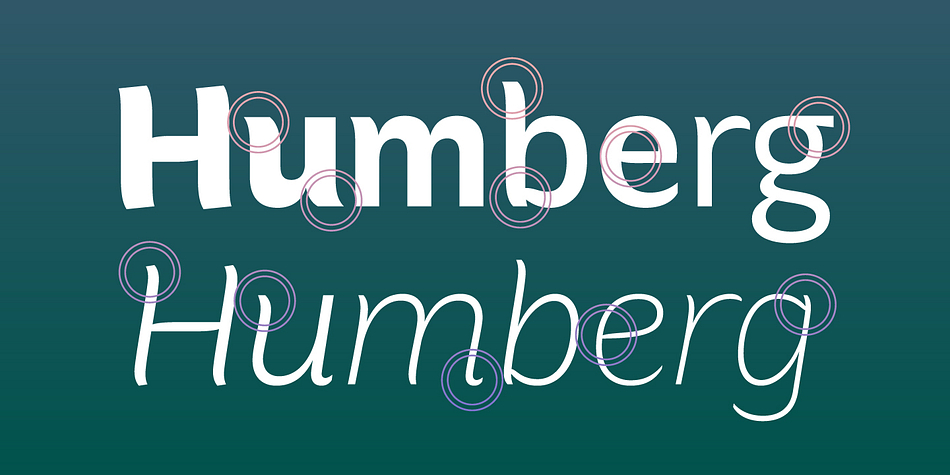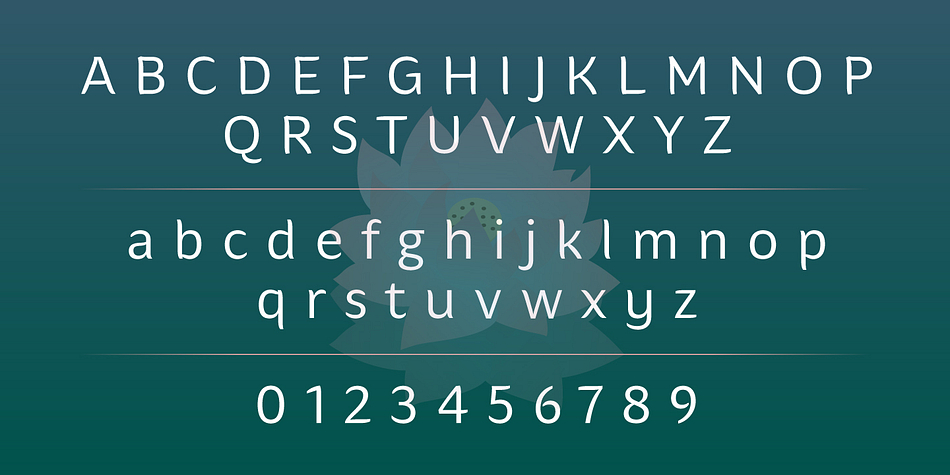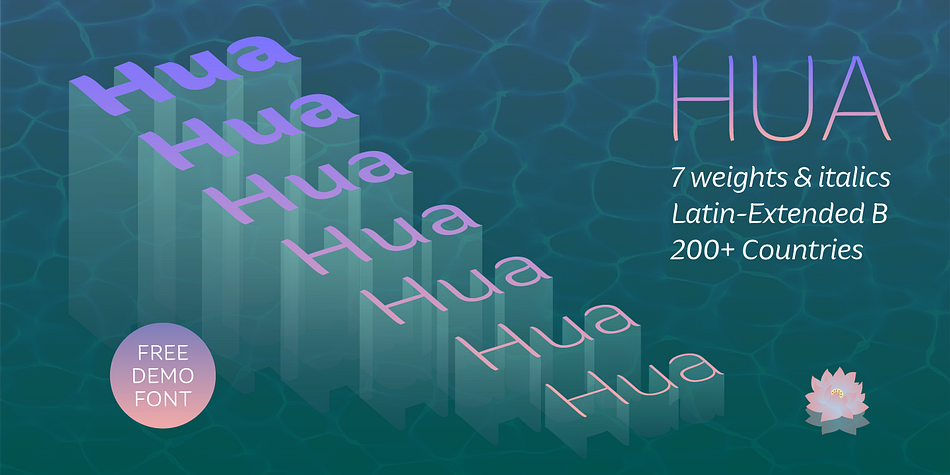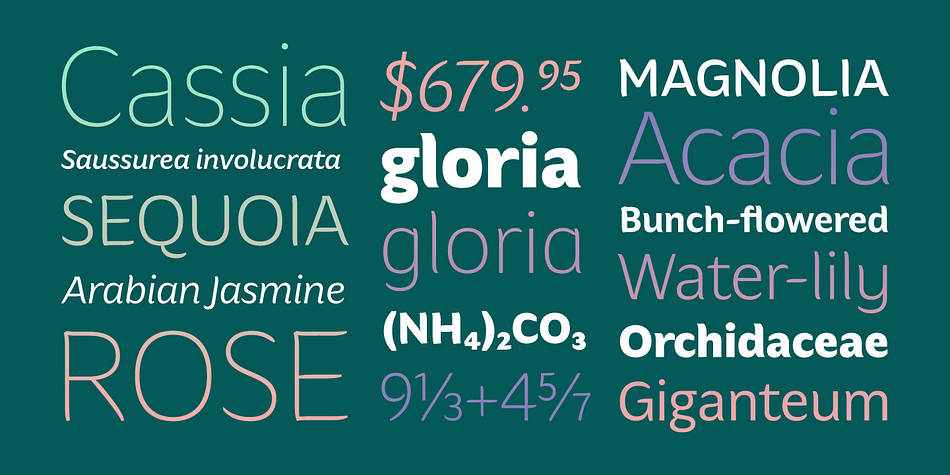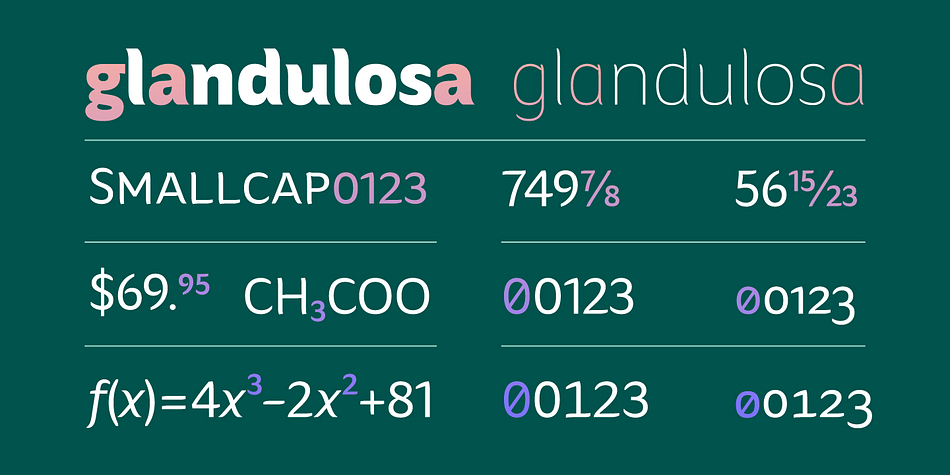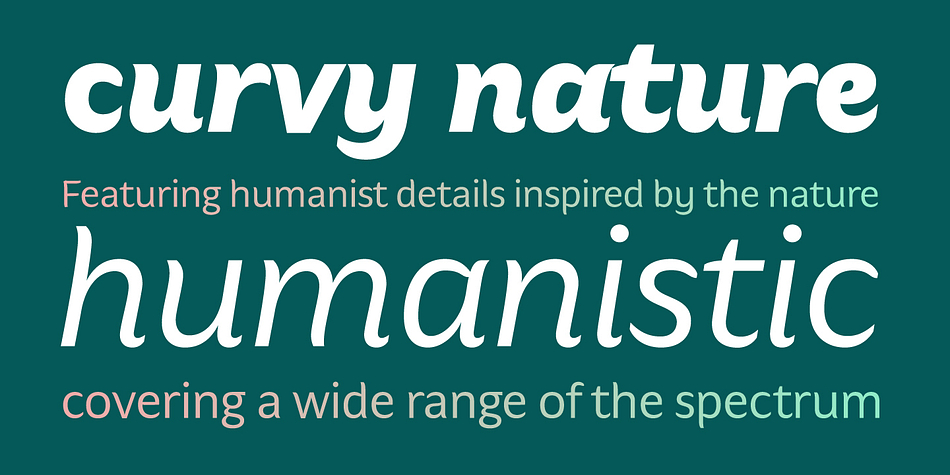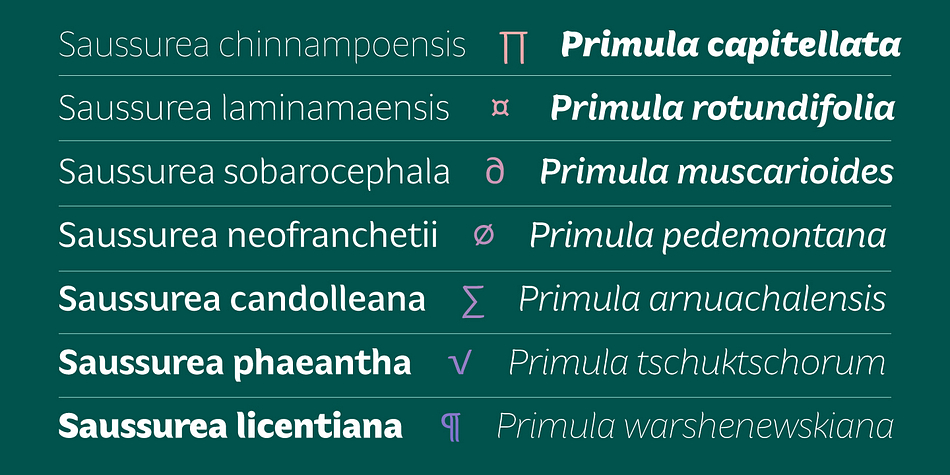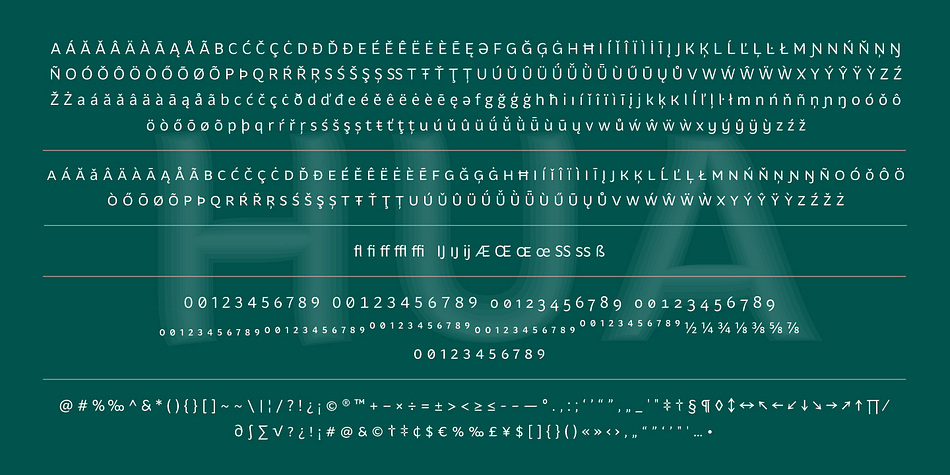
Designed by Yuexin Huo, Hua is a sans serif font family. This typeface has fifteen styles and was published by YXType.
Hua type family is a sans-serif with very humanist details to represent the essence of nature. It features 14 weights from the very thin to the very bold, generously covering a wide range of the natural spectrum. Aiming to represent the soft and elegant side of nature, Hua features very unique italics that have their own take on the identity. The letterforms of the italic fonts are inspired by the lineage of both traditional calligraphic approaches for serifs and much simpler forms for sans-serifs.
Hua provides very crisp performances on screens and its large x-height combined with fine-tuned proportions help it retain legibility very well on smaller sizes.
• Support for 200+ Latin languages
• Double & single storie “a” & “g”
• Unique italic letterforms
• Low contrast with unique details
• Small caps with symbols
• Arbitrary and defined fractions
• Support for superscript & subscript in normal & scientific alignments
• Proportional lining, proportional old-style, tabular lining, tabular old-style